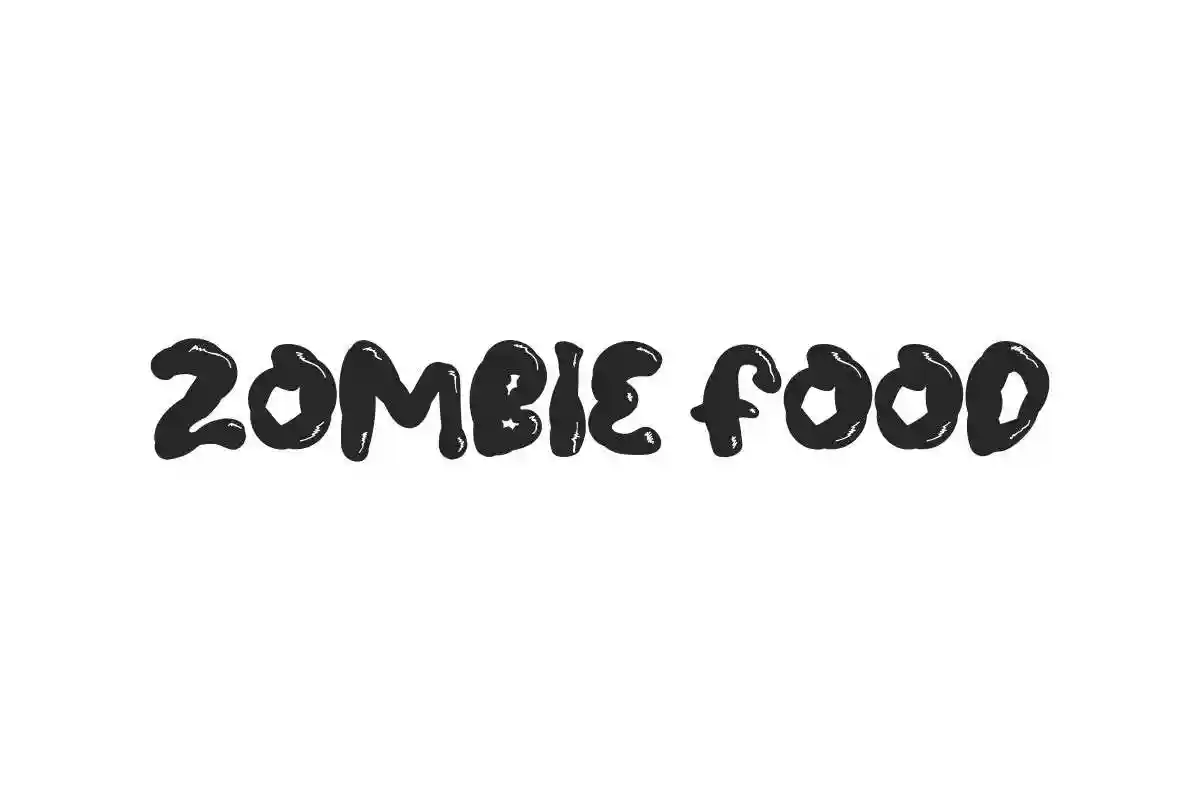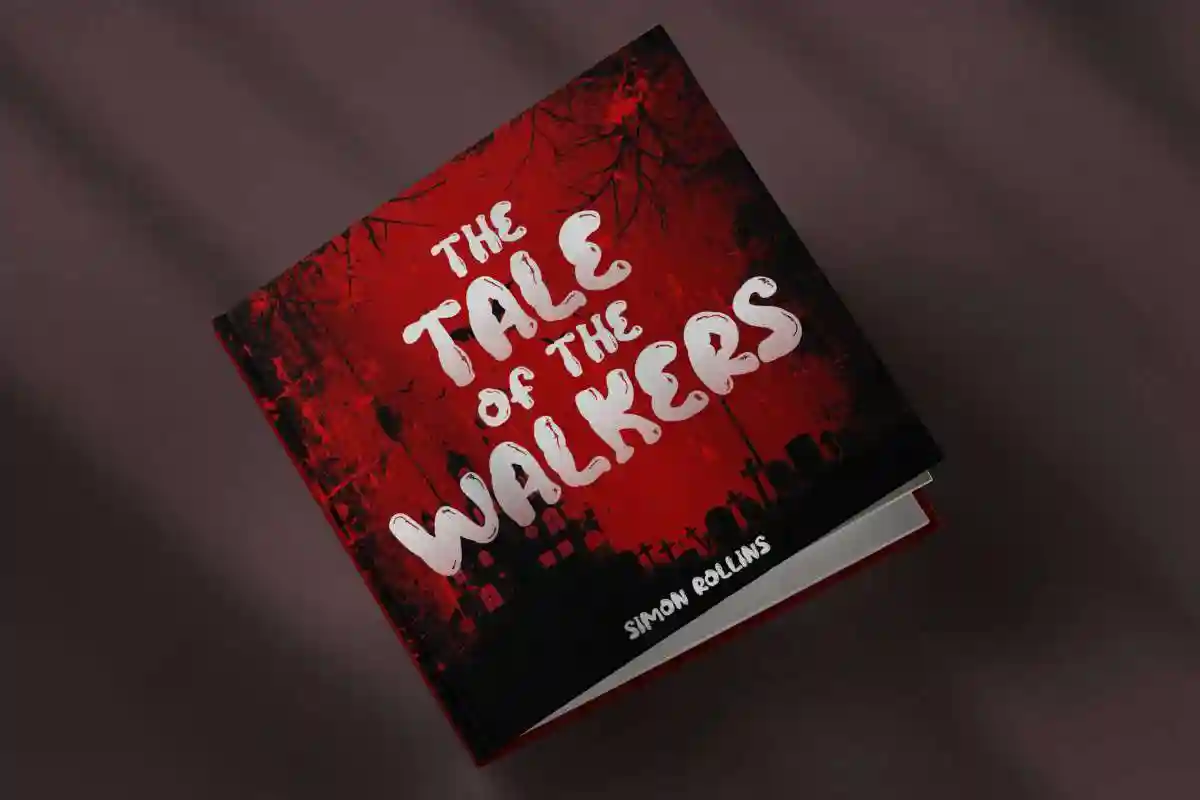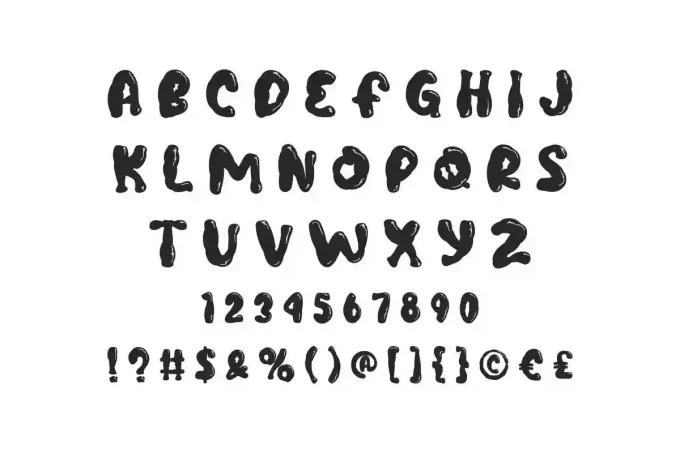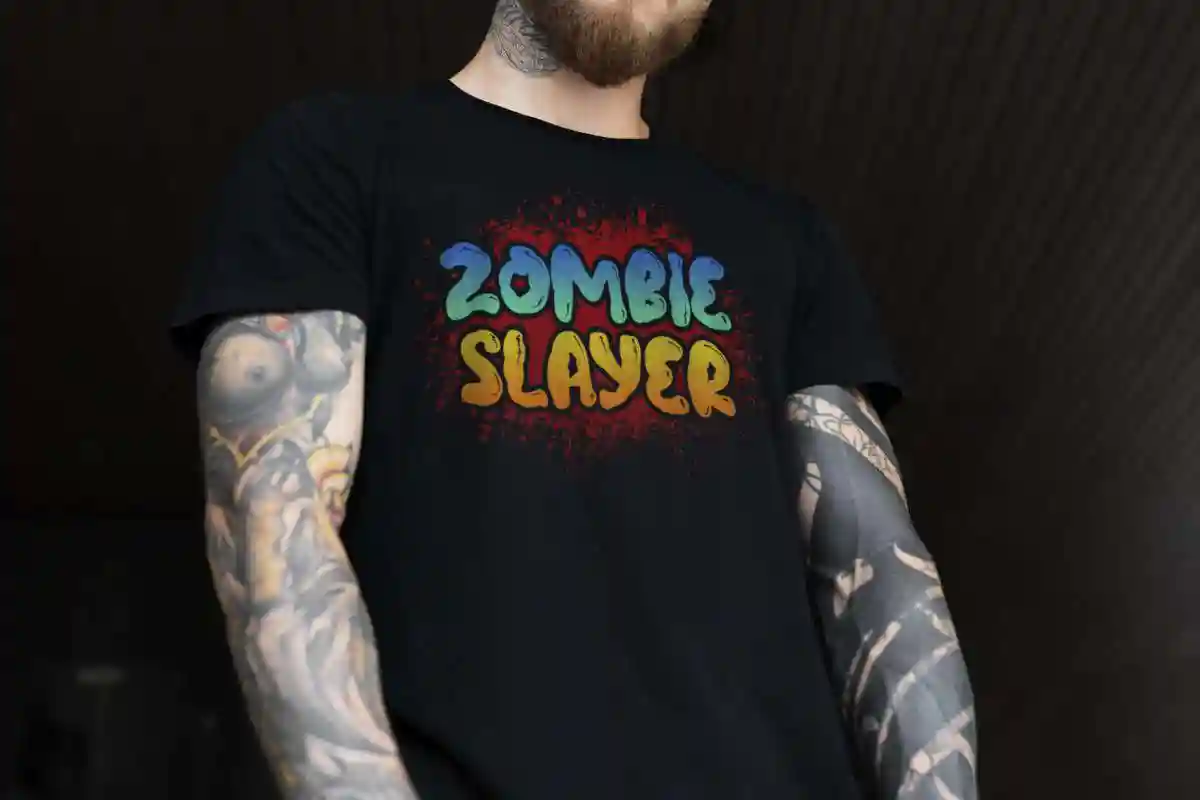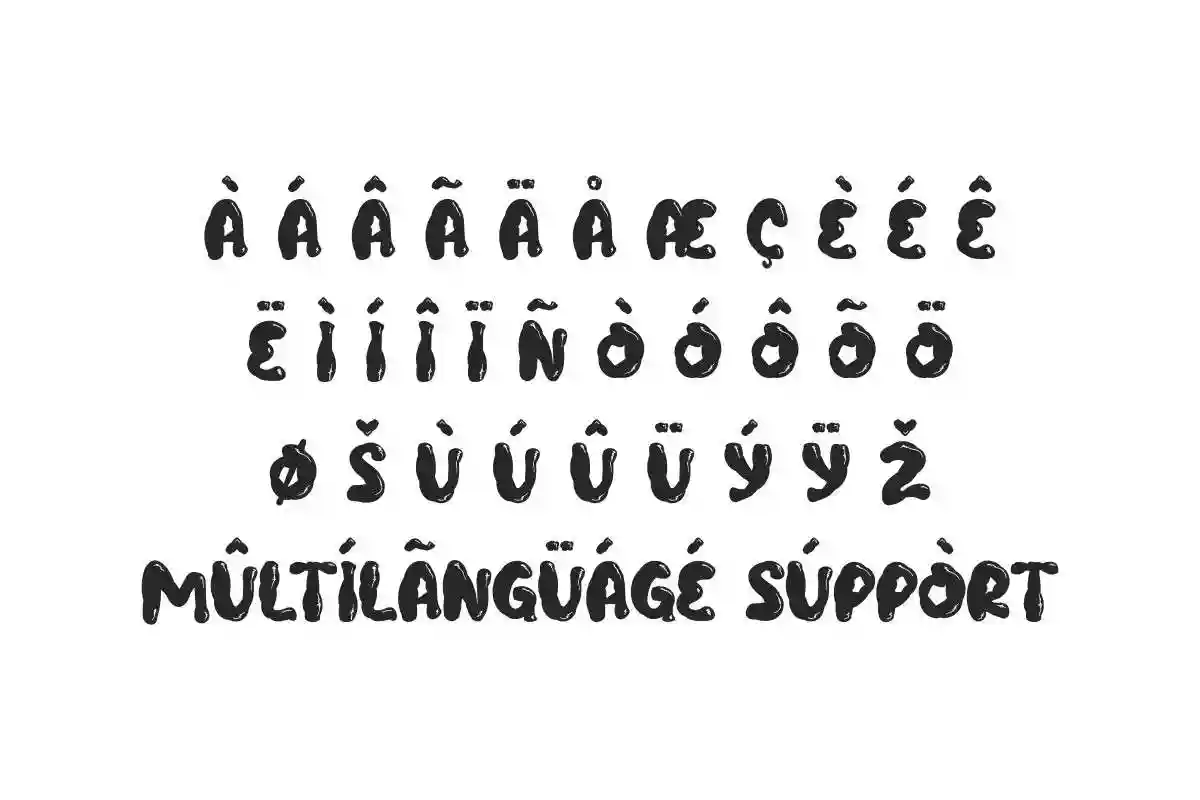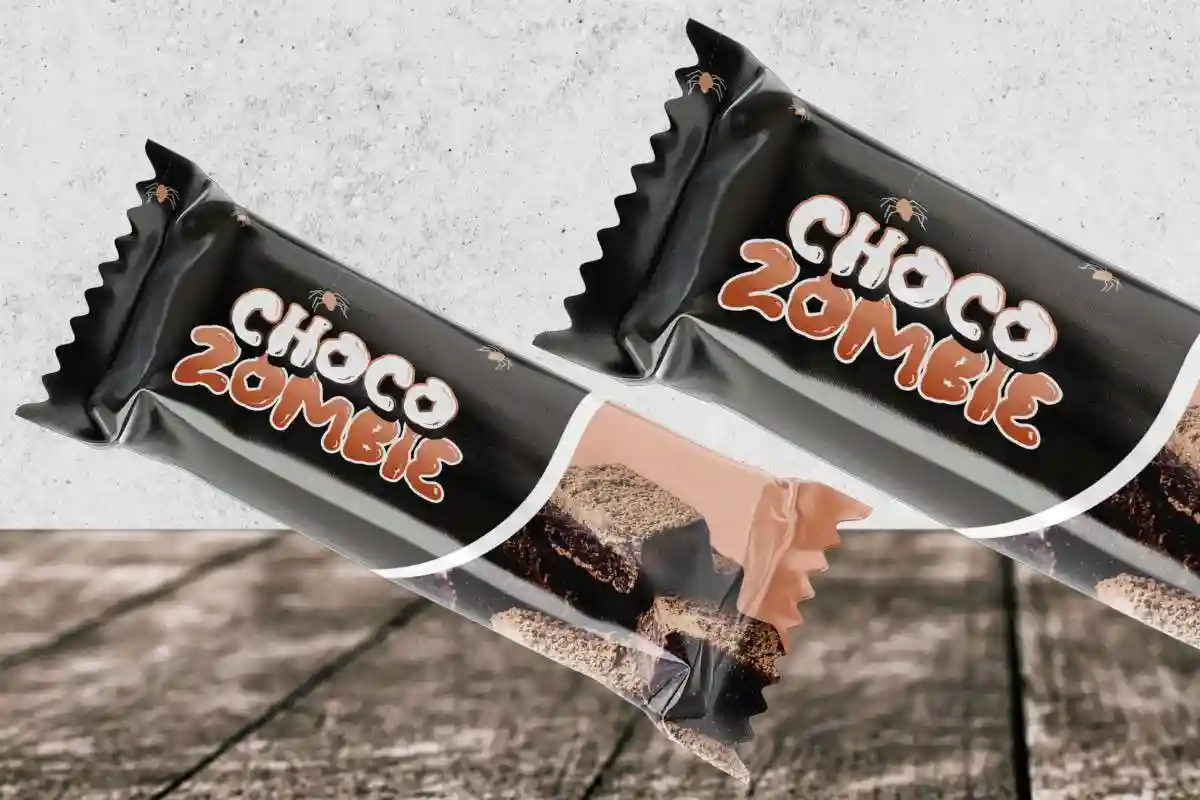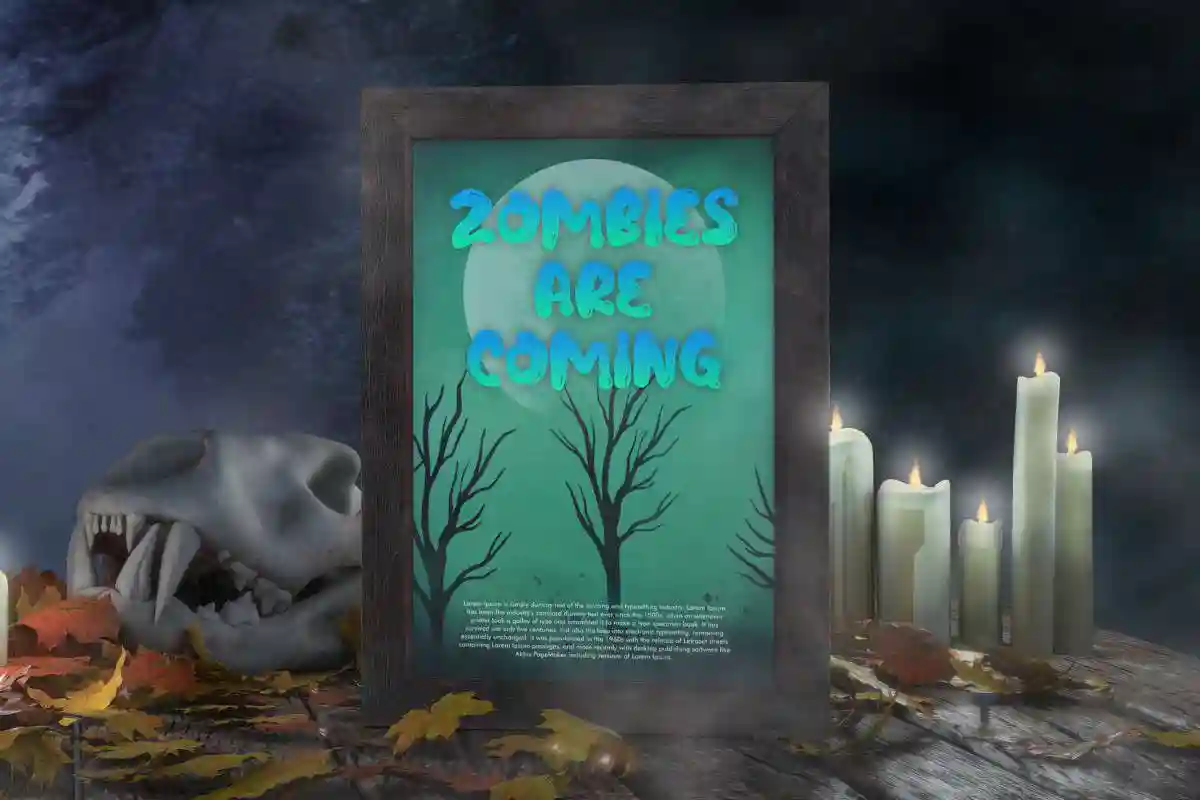
Zombie Food Font is a fun comic display font with spooky horror and unique shapes, exclusively created by NihStudio. Use this font for film, game, snack brand, writer, and anything that needs a cool spooky look.
Zombie Food Font is a fun display font with horror style. It’s said that brain is the food of zombies. So, that’s where the inspiration for this font came from. This scary font would be perfect for any industry such as, author, cafĂ©, fashion, film, game, movie, party, publishing, printing, snack brand, and more!
Zombie Food Font will be great for creative projects including billboard, brand logo, headline, packaging design, poster, screen printing, skateboard design, stationery, and anything that needs a cool spooky look.